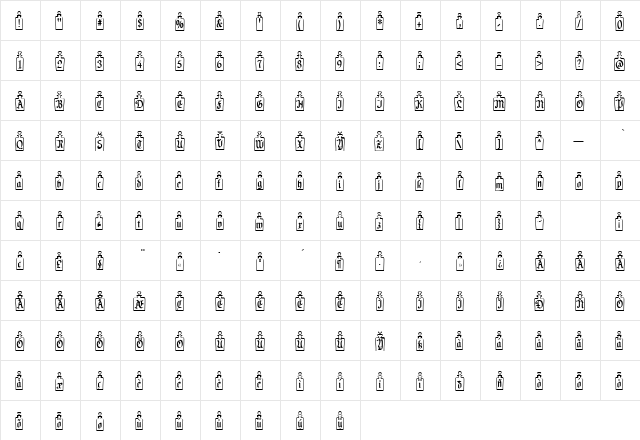
MedicineShelf Regular
Design Context for MedicineShelf Typeface
MedicineShelf is a composed and adaptable typeface that performs quietly and consistently across a wide range of design contexts.